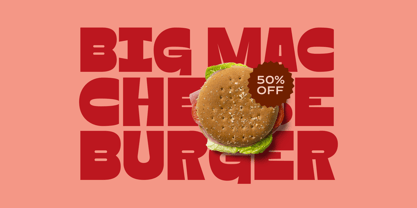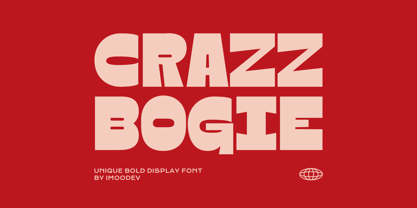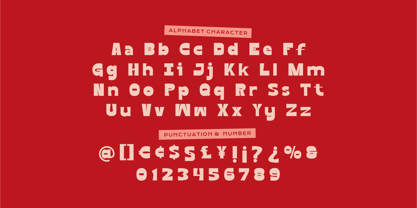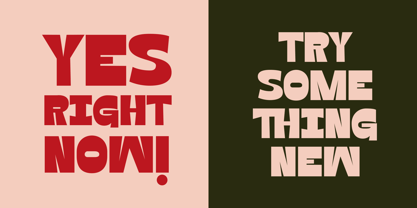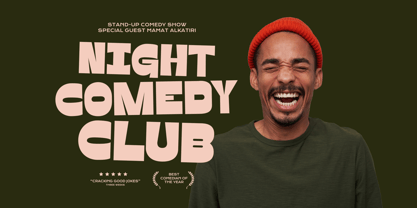
Crazy Bogie
The Crazy Bogie Font Family was designed by Aulia Savira Putri and published by Imoodev. Crazy Bogie contains 1 styles. More about this family
Crazy Bogie is a unique, bold display typeface characterized by its heavy weight, exaggerated letterforms, and geometric style. This font It features wide, blocky shapes with strong, playful curves and angular edges, contributing to a distinctly bold, fun, and lively aesthetic.
The design feels robust, attention-grabbing, ideal for headlines, posters, event flyers, pop culture merchandise, or branding materials seeking a dynamic, youthful energy.